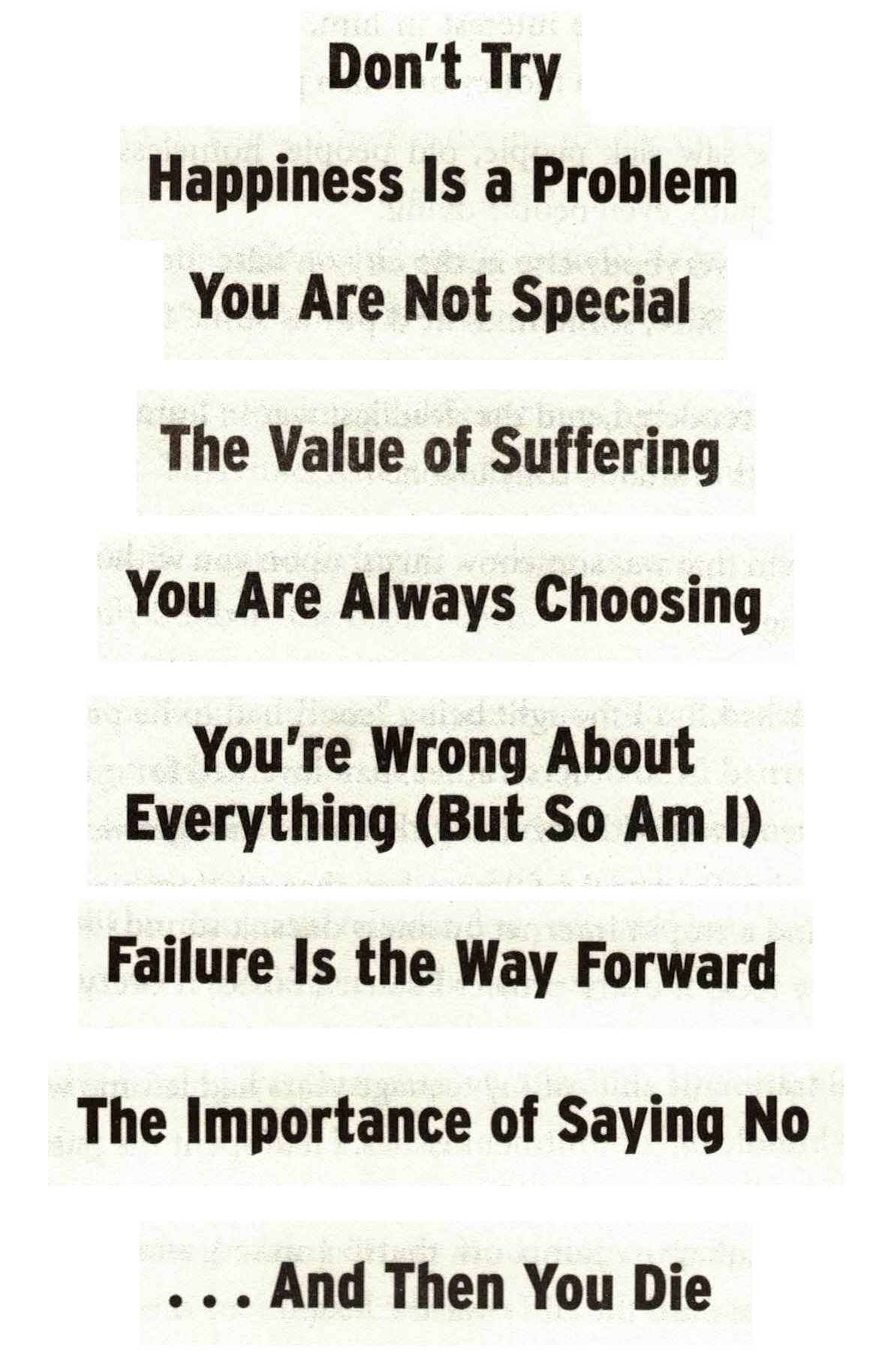
Font for the chapter/header text of 'The Subtle Art of Not Giving a F***" by Mark Manson?
I'd like to ask if anyone recognises the font used for the chapter/header text of 'The Subtle Art of Not Giving a F***" by Mark Manson, Australian version, ISBN: 978-1-76055-877-2, published by Pan Macmillan Australia.
It works really well as a header due to it being quite narrow. You can also see a high-resolution original scan here.
I've attached a scan below.
Just curious, how did you know it was Interstate?